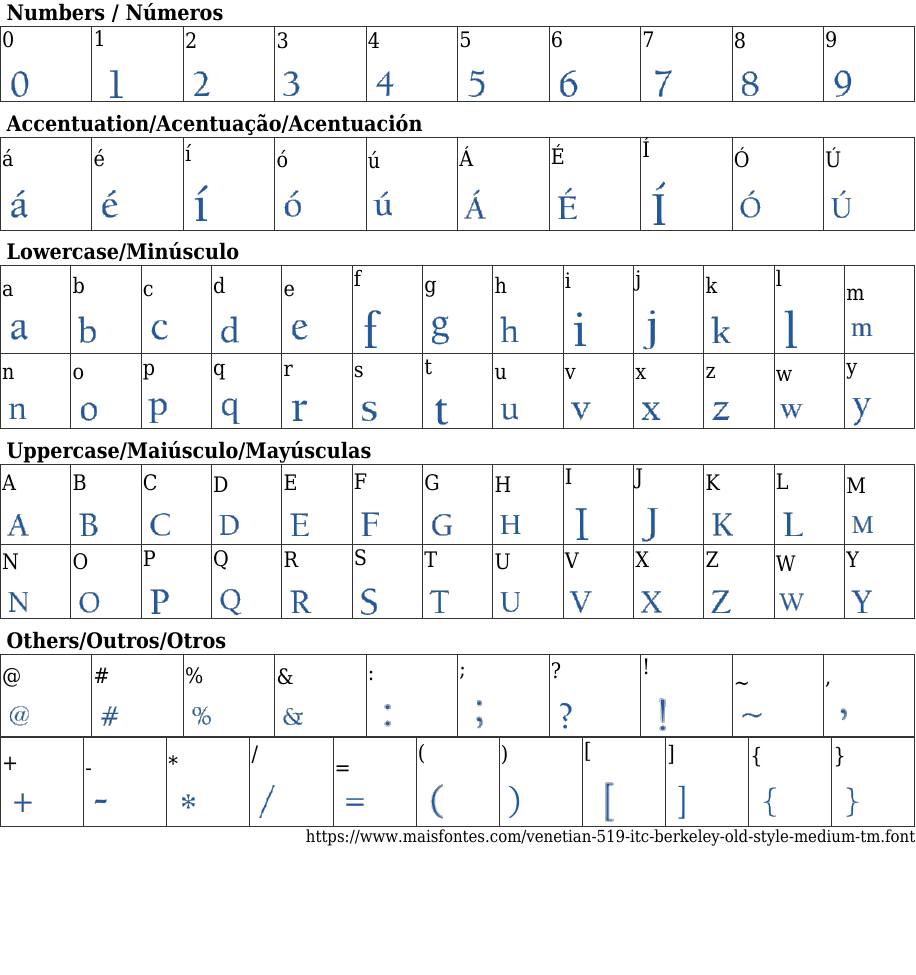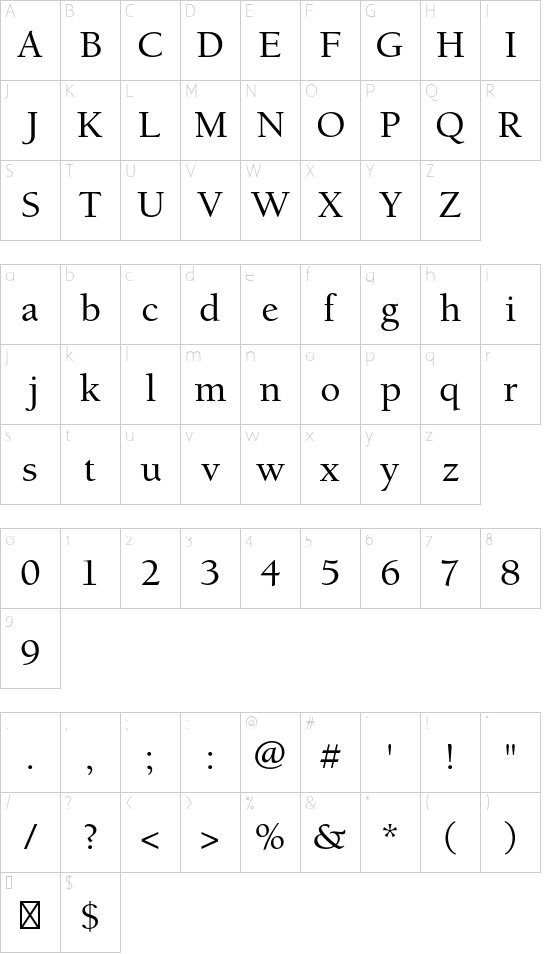
Berkeley Oldstyle Font
Berkeley Oldstyle Font - I've used a font called berkeley old style for a layout in adobe indesign in 2019. Goudy in 1938 called university of california old style. I jsut tried to locate it in adobe fonts and the. Itc berkeley old style is based on a typeface designed by frederic w. University of california old style is a serif typeface designed by frederic goudy and created for the university of california press from.
Itc berkeley old style is based on a typeface designed by frederic w. University of california old style is a serif typeface designed by frederic goudy and created for the university of california press from. I've used a font called berkeley old style for a layout in adobe indesign in 2019. Goudy in 1938 called university of california old style. I jsut tried to locate it in adobe fonts and the.
I've used a font called berkeley old style for a layout in adobe indesign in 2019. University of california old style is a serif typeface designed by frederic goudy and created for the university of california press from. I jsut tried to locate it in adobe fonts and the. Goudy in 1938 called university of california old style. Itc berkeley old style is based on a typeface designed by frederic w.
I jsut tried to locate it in adobe fonts and the. University of california old style is a serif typeface designed by frederic goudy and created for the university of california press from. Goudy in 1938 called university of california old style. I've used a font called berkeley old style for a layout in adobe indesign in 2019. Itc berkeley.
University of california old style is a serif typeface designed by frederic goudy and created for the university of california press from. Itc berkeley old style is based on a typeface designed by frederic w. I jsut tried to locate it in adobe fonts and the. Goudy in 1938 called university of california old style. I've used a font called.
I jsut tried to locate it in adobe fonts and the. Itc berkeley old style is based on a typeface designed by frederic w. University of california old style is a serif typeface designed by frederic goudy and created for the university of california press from. I've used a font called berkeley old style for a layout in adobe indesign.
Goudy in 1938 called university of california old style. University of california old style is a serif typeface designed by frederic goudy and created for the university of california press from. I jsut tried to locate it in adobe fonts and the. Itc berkeley old style is based on a typeface designed by frederic w. I've used a font called.
I jsut tried to locate it in adobe fonts and the. I've used a font called berkeley old style for a layout in adobe indesign in 2019. Itc berkeley old style is based on a typeface designed by frederic w. Goudy in 1938 called university of california old style. University of california old style is a serif typeface designed by.
University of california old style is a serif typeface designed by frederic goudy and created for the university of california press from. Itc berkeley old style is based on a typeface designed by frederic w. Goudy in 1938 called university of california old style. I've used a font called berkeley old style for a layout in adobe indesign in 2019..
Itc berkeley old style is based on a typeface designed by frederic w. University of california old style is a serif typeface designed by frederic goudy and created for the university of california press from. I've used a font called berkeley old style for a layout in adobe indesign in 2019. Goudy in 1938 called university of california old style..
Goudy in 1938 called university of california old style. I jsut tried to locate it in adobe fonts and the. Itc berkeley old style is based on a typeface designed by frederic w. I've used a font called berkeley old style for a layout in adobe indesign in 2019. University of california old style is a serif typeface designed by.
University of california old style is a serif typeface designed by frederic goudy and created for the university of california press from. Itc berkeley old style is based on a typeface designed by frederic w. I've used a font called berkeley old style for a layout in adobe indesign in 2019. Goudy in 1938 called university of california old style..
I jsut tried to locate it in adobe fonts and the. Goudy in 1938 called university of california old style. I've used a font called berkeley old style for a layout in adobe indesign in 2019. University of california old style is a serif typeface designed by frederic goudy and created for the university of california press from. Itc berkeley.
University Of California Old Style Is A Serif Typeface Designed By Frederic Goudy And Created For The University Of California Press From.
Goudy in 1938 called university of california old style. I jsut tried to locate it in adobe fonts and the. I've used a font called berkeley old style for a layout in adobe indesign in 2019. Itc berkeley old style is based on a typeface designed by frederic w.